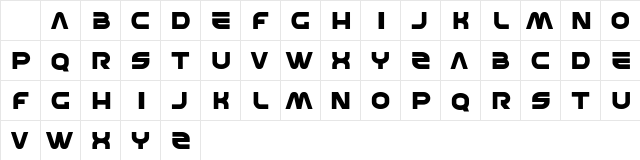
SHEDEVR is a composed and adaptable typeface that performs quietly and consistently across a wide range of design contexts. Its bold stroke weight gives it real presence on the page.